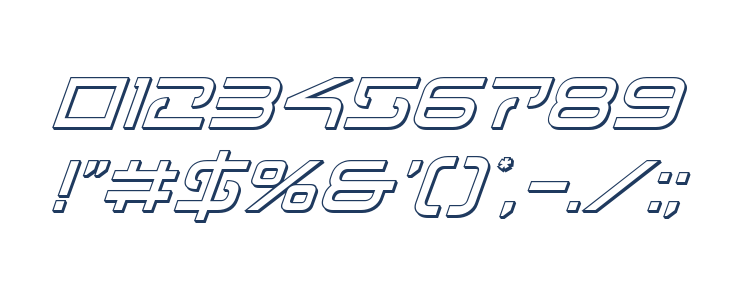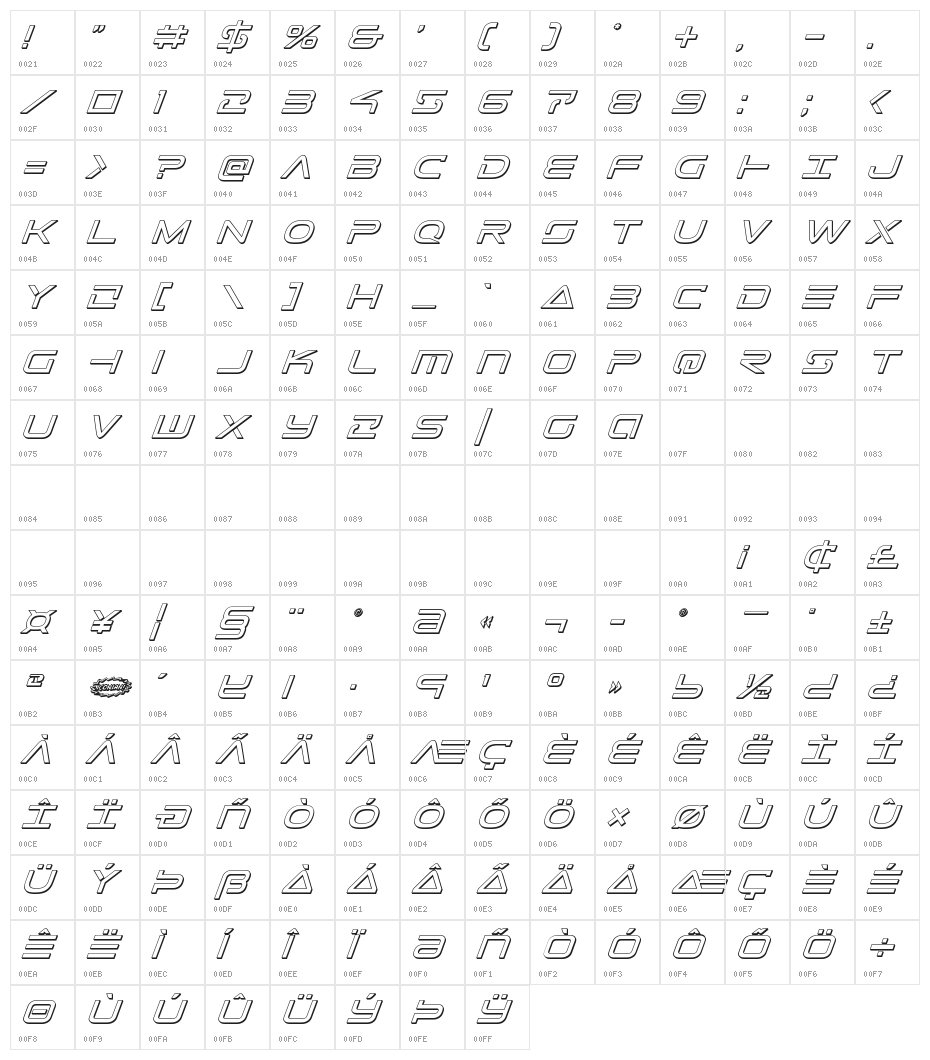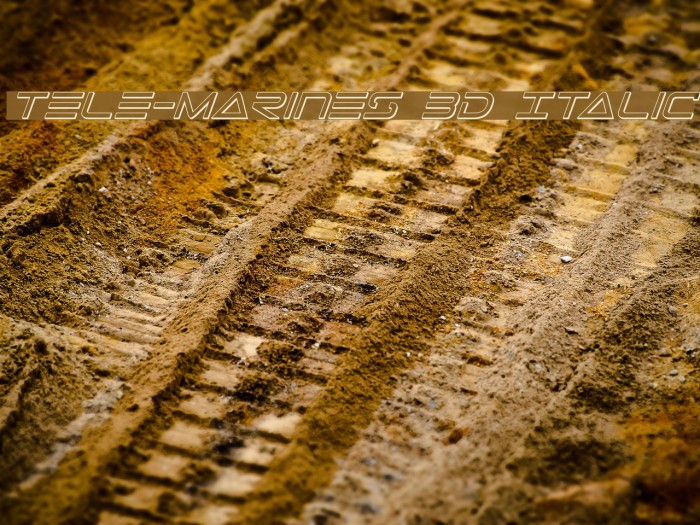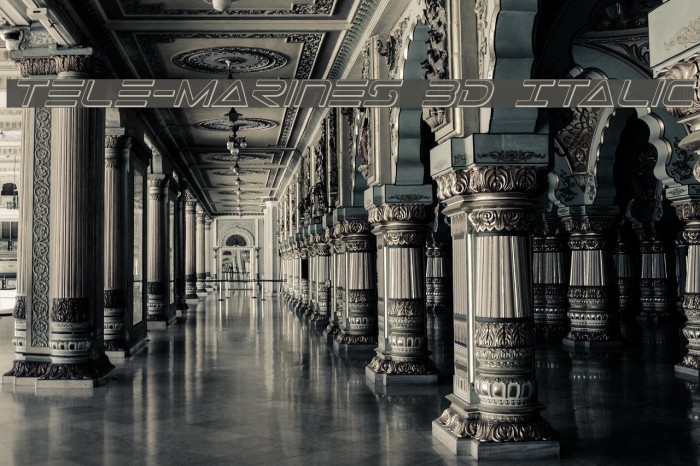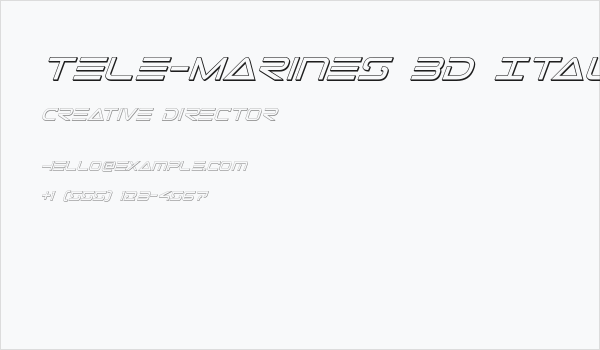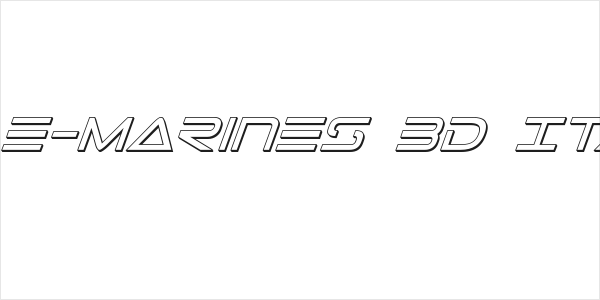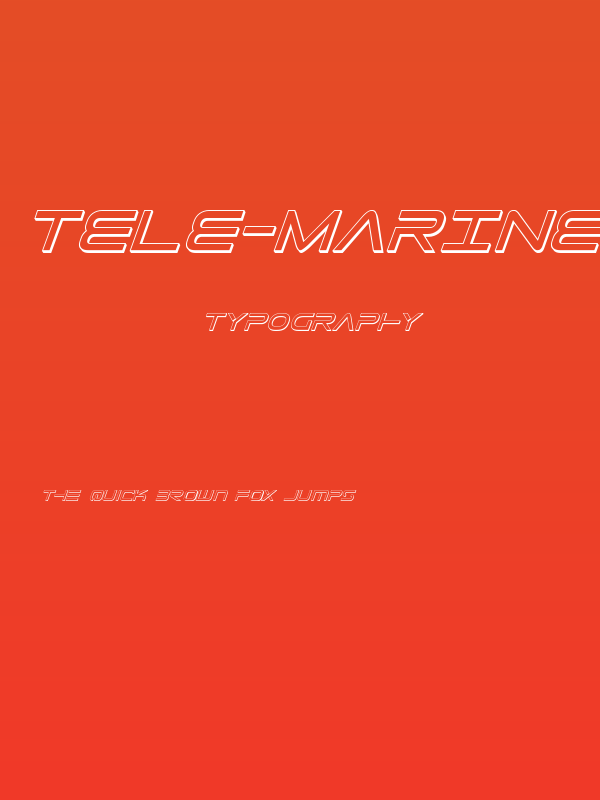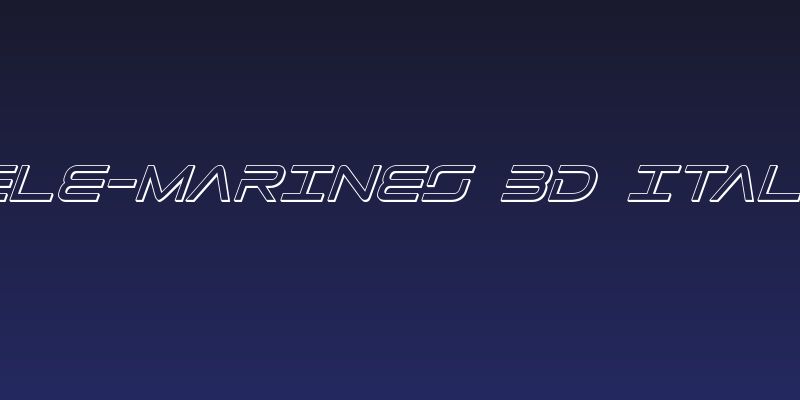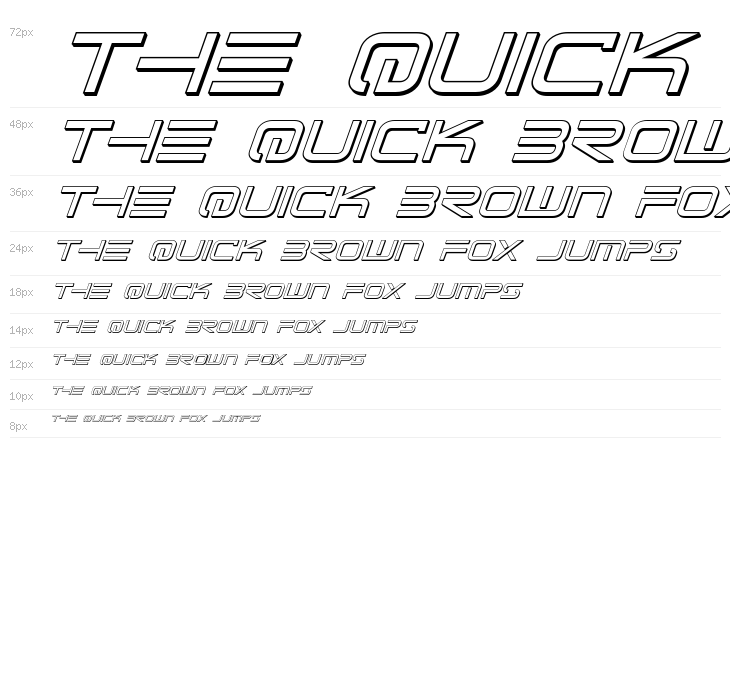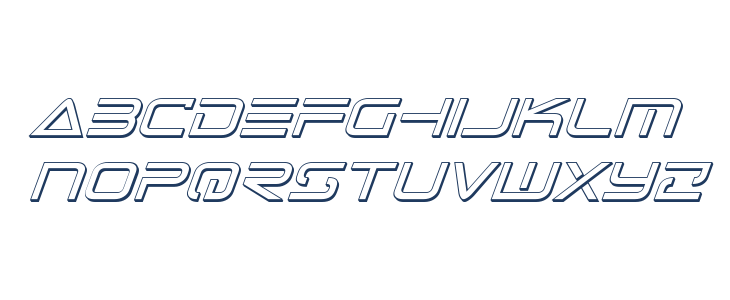
Tele-Marines 3D Italic Font
Tele-Marines 3D Italic Description
This font features a futuristic and dynamic design with a 3D italicized style. The characters are outlined, giving them a hollow appearance that enhances their modern and sleek look. The uppercase and lowercase letters maintain a consistent geometric form, with sharp angles and clean lines. Numbers and special characters follow the same design principles, ensuring uniformity across all glyphs. This font's unique style makes it stand out, ideal for projects that require a bold and innovative visual impact.
| Proposed Projects | Ideal for sci-fi themed designs, tech branding, video game titles, and modern posters. |